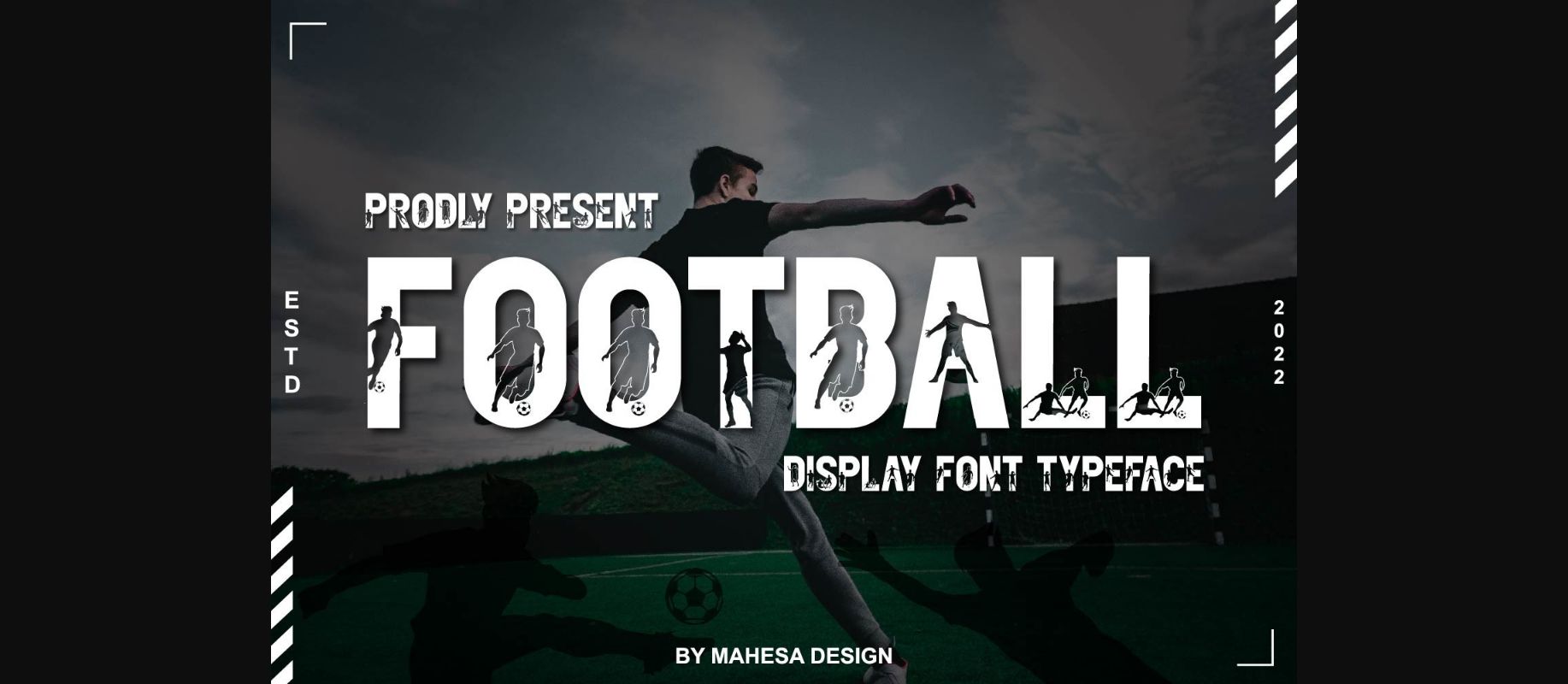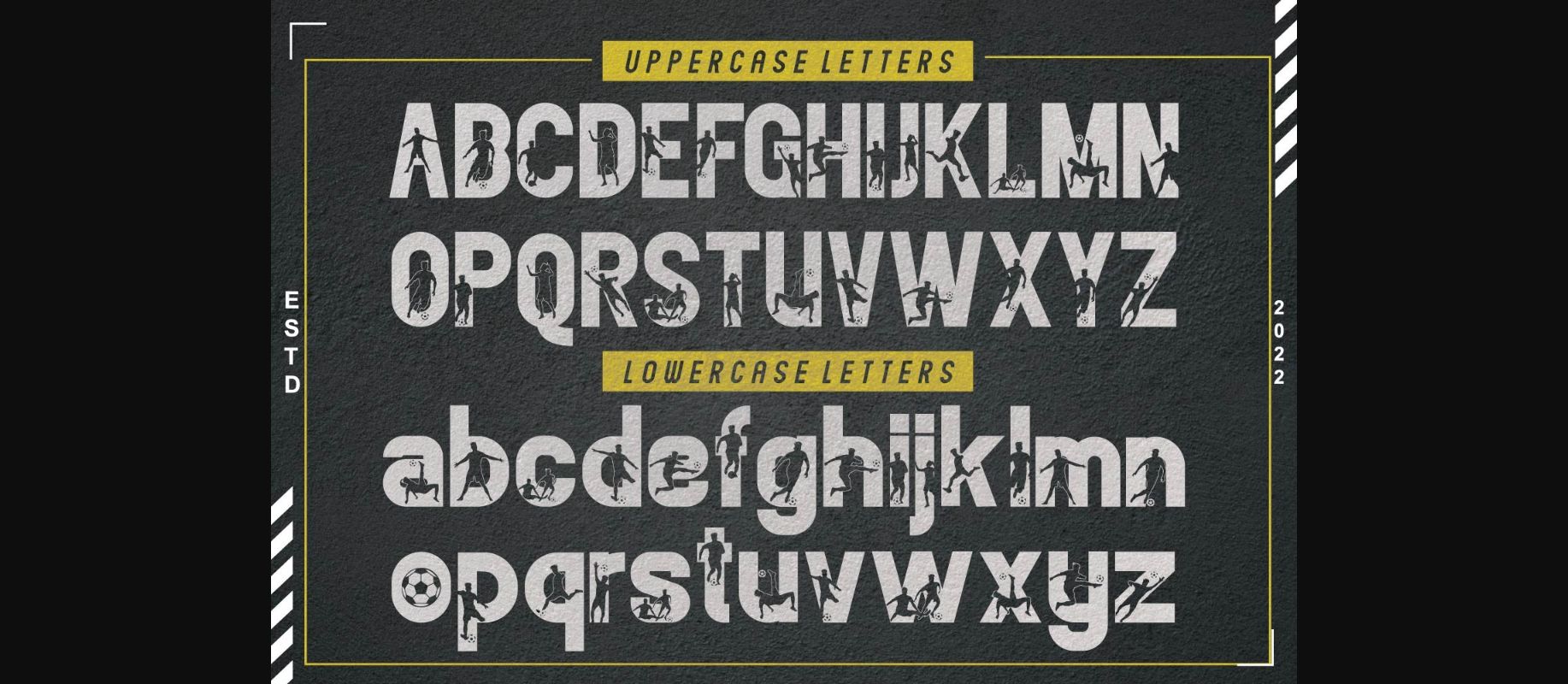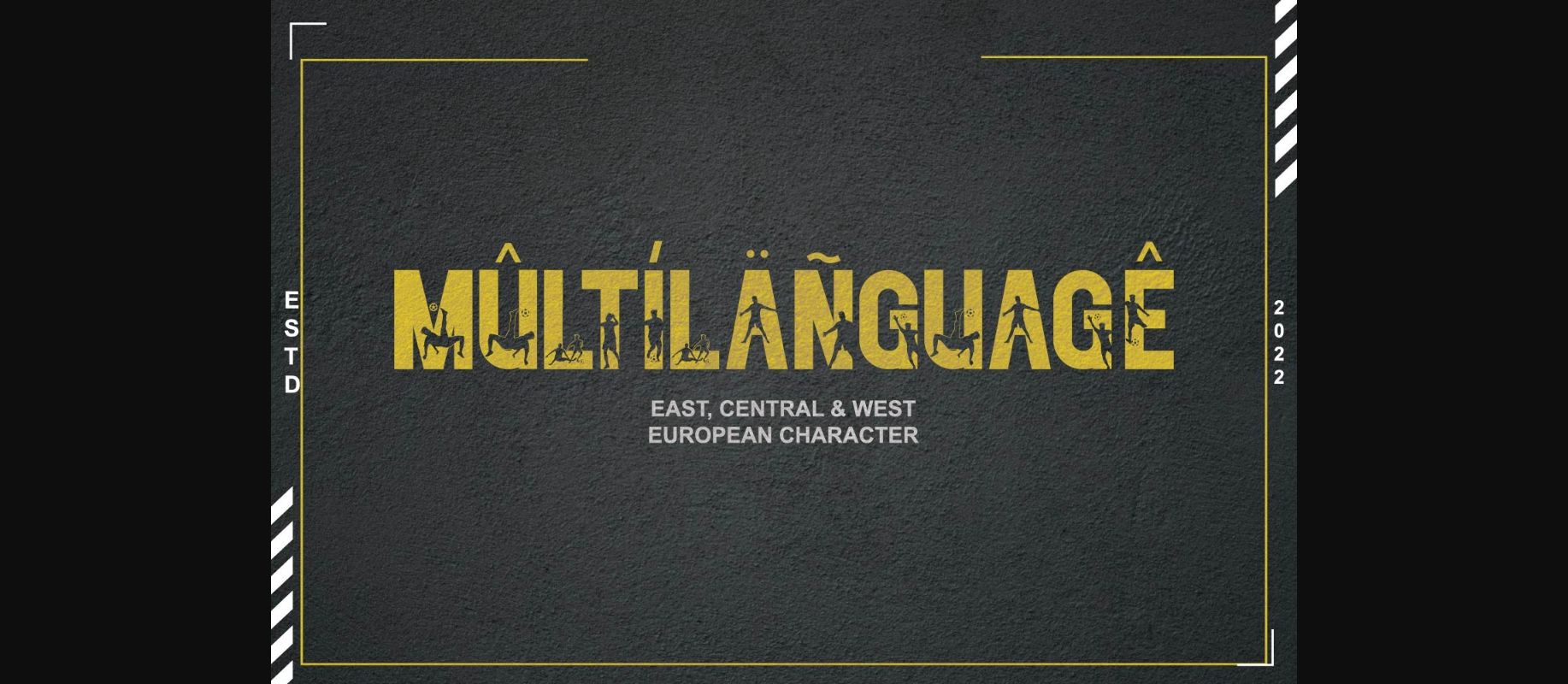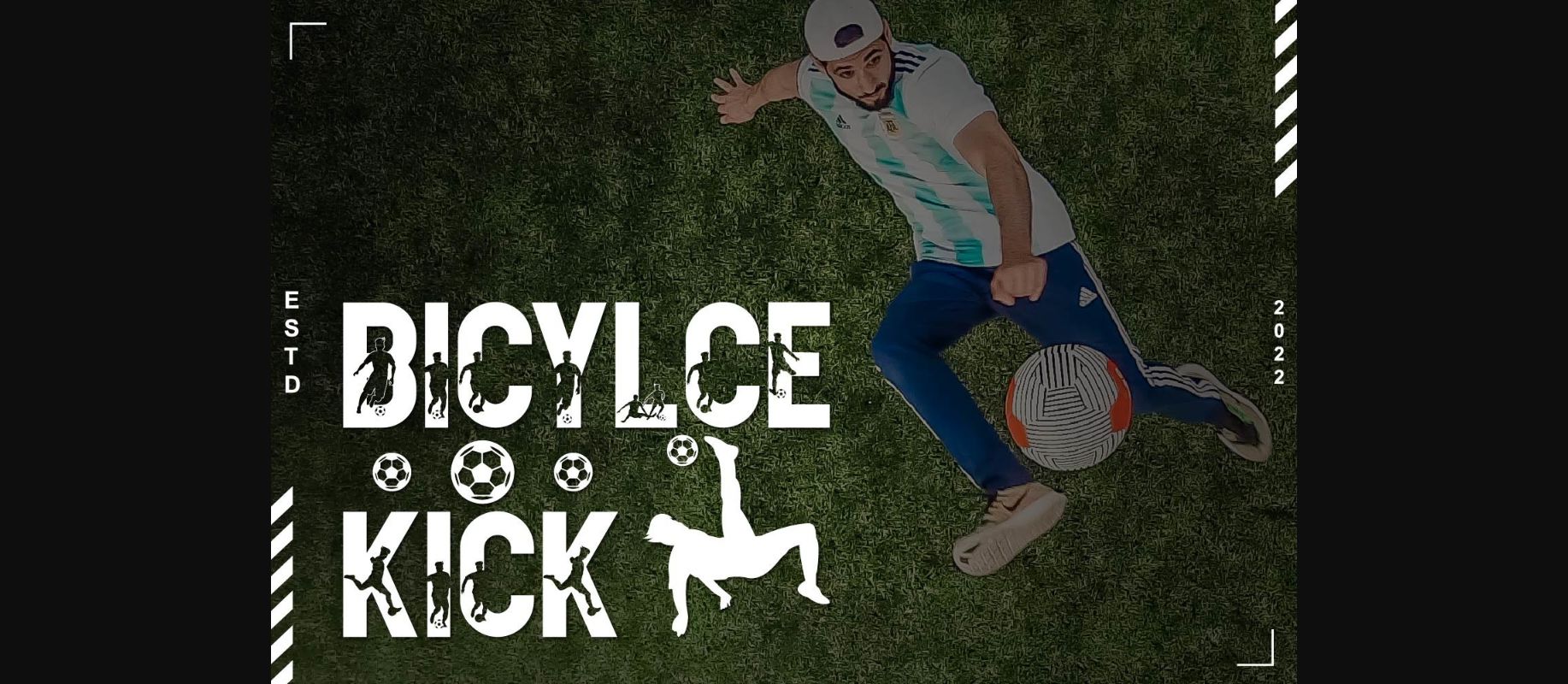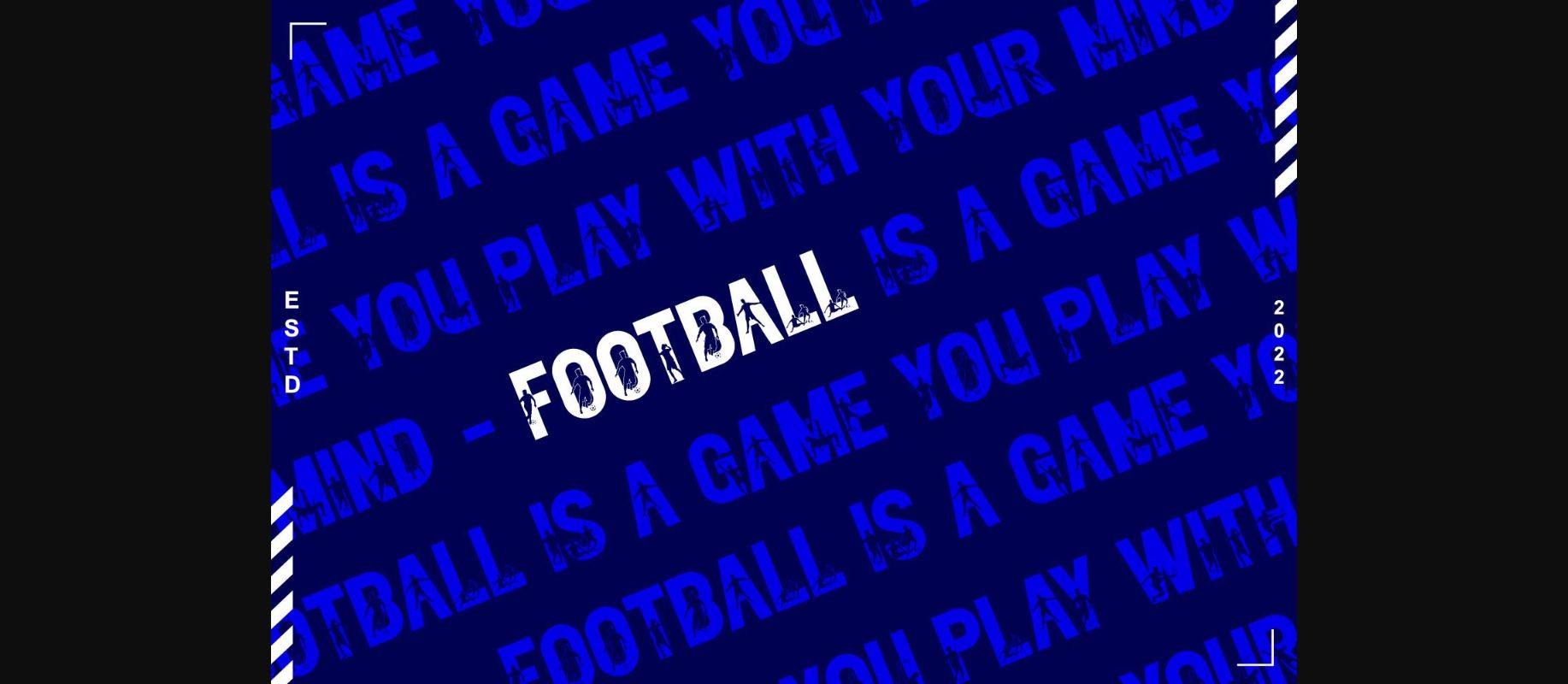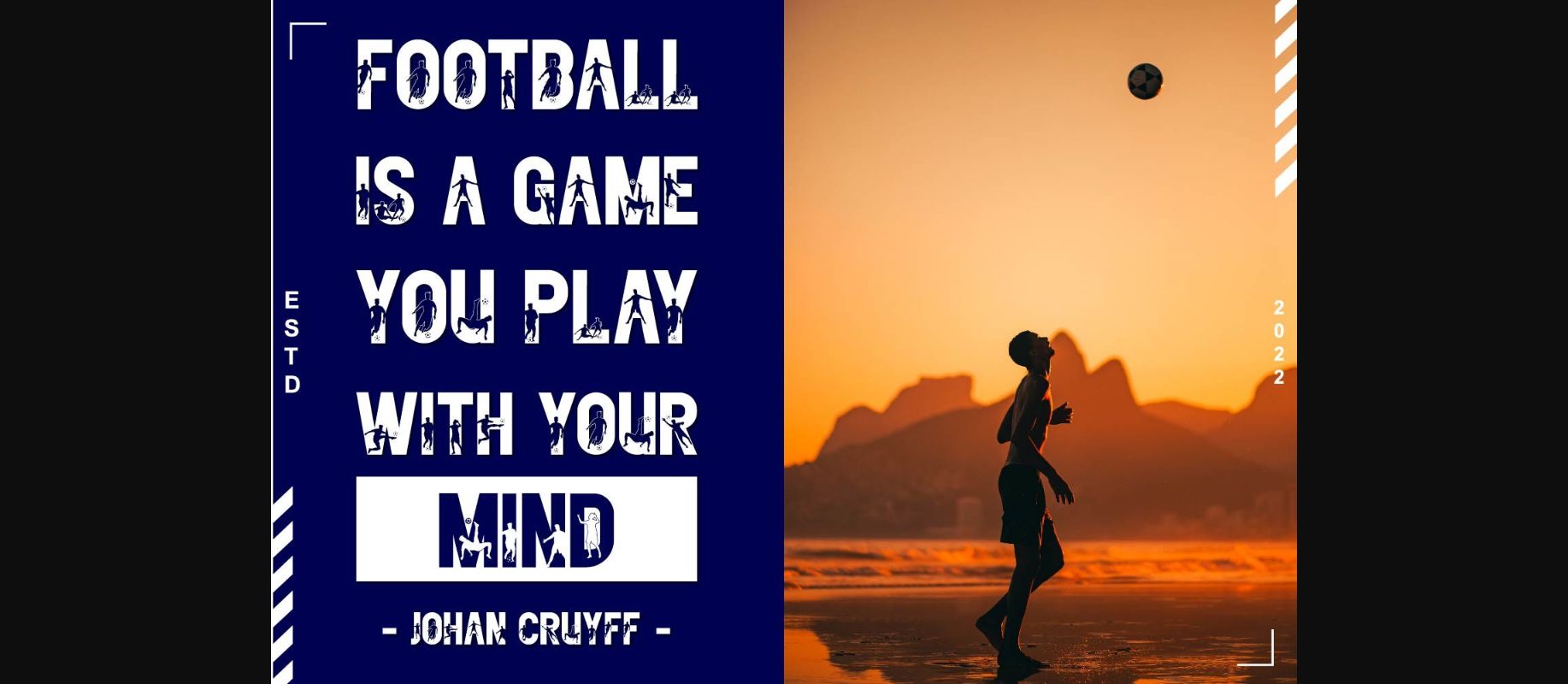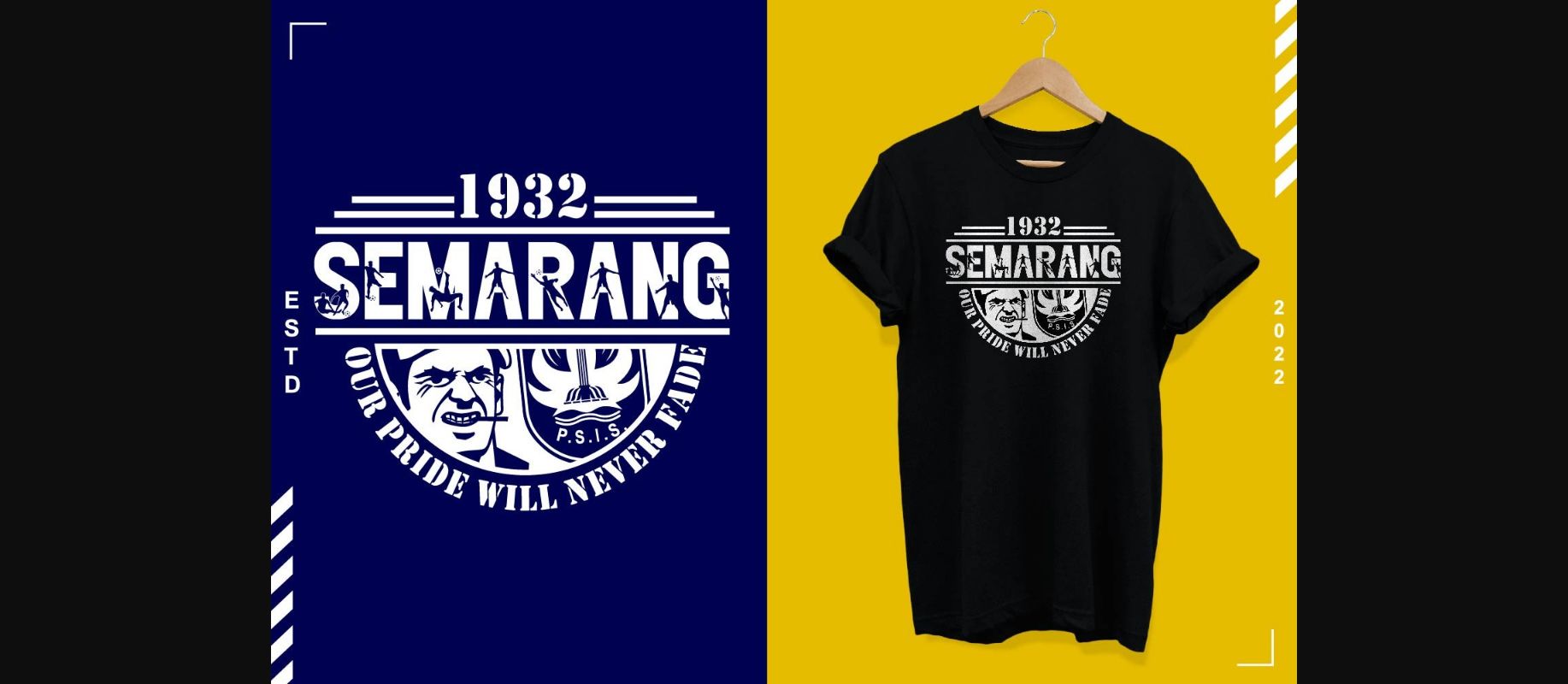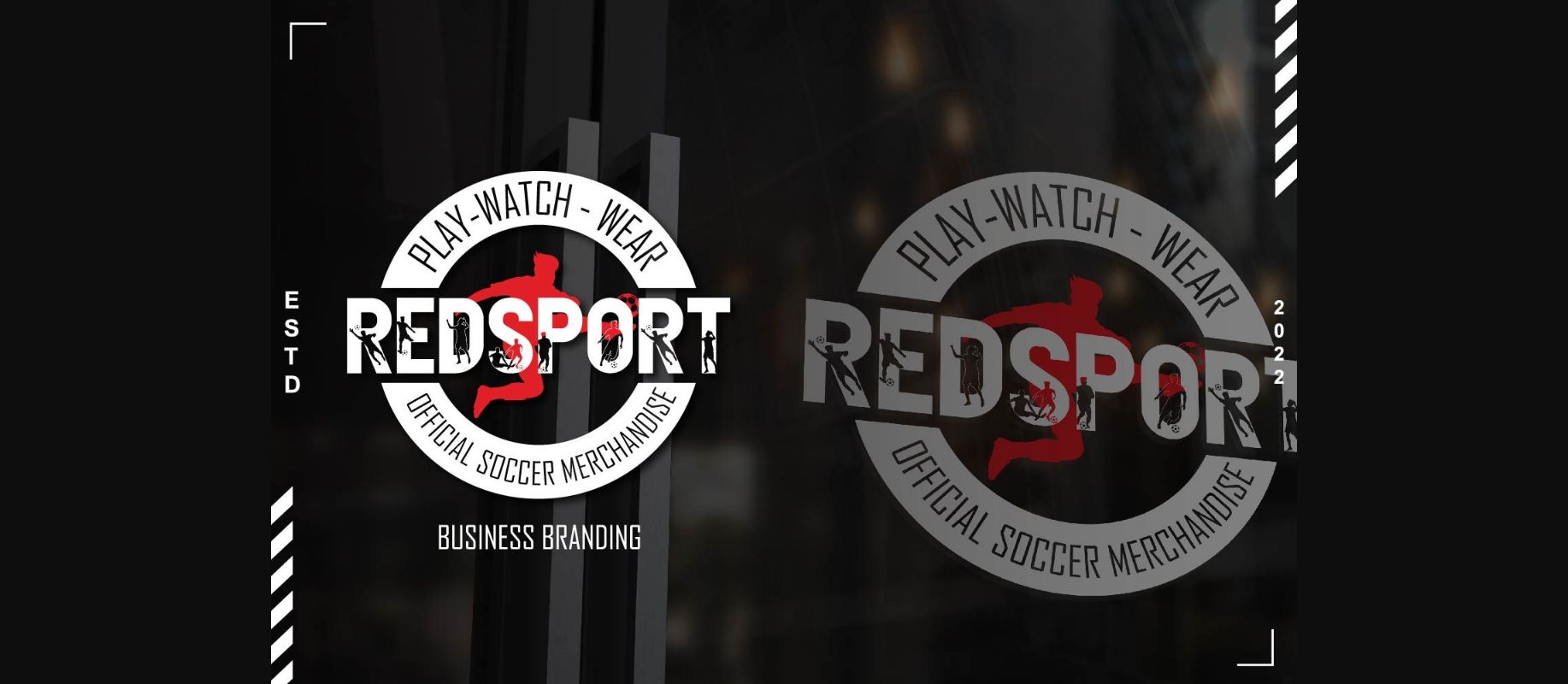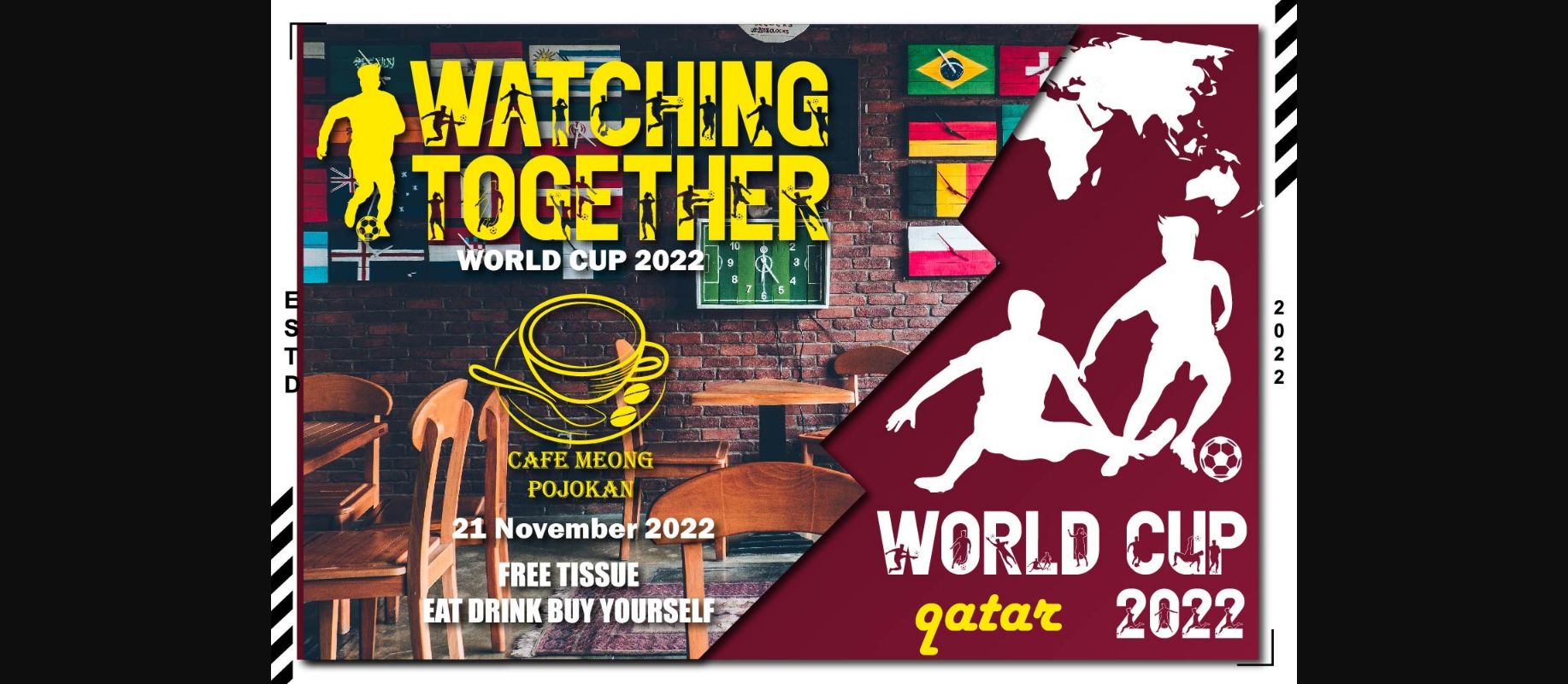
Football is a cool and fun display font. It is ideal for sporting events. Add this bold font to your design and see how it brings life!
Nice and clean Football style font. Perfect for t-shirts, clothes, and more!